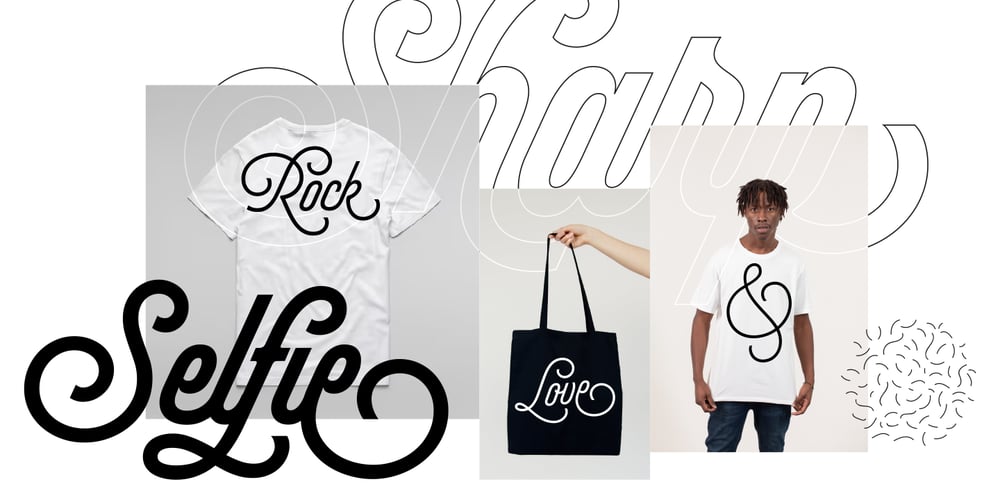
Selfie Neue Sharp Font Family was designed by Maximiliano R. Sproviero and published by Sproviero Type. Selfie Neue Sharp contains 85 styles and family package options. INTRODUCTIONWhen I started the first Selfie back in 2014 I was aware that I was designing something innovative at some point, because at that time there were not too many, (if any) fonts which rescued so many calligraphy features being at the same time a monolinear sans. I took inspiration from the galerías’ neon signs of my home city, Buenos Aires, and incorporated the logic and ductus of the spencerian style. The result was a very versatile font with many ligatures, swashes and a friendly look.But… I wasn’t cognizant of how successful the font would become!Selfie is maybe the font of my library that I see the most when I finally go out, (type-designers tend to be their entire lives glued to a screen), when I travel, and also the font that I mostly get emails about, asking for little tweaks, new capitals, new swashes. Selfie was used by several renowned clients, became part of many ‘top fonts of the year’ lists and was published in many magazines and books about type-design.These recognitions were, at the same time, cuddles for me and my Selfie and functioned as a driving force in 2020 to start this project which I called Selfie Neue.THE FONT”Selfie for everything”Selfie Neue, because it’s totally new: All its glyphs were re-drawn, all the proportions changed for better, and the old and somehow naive forms of the first Selfie were redesigned.Selfie Neue is now a family of many members (you can choose between a Rounded or a Sharp look), from Thin to Black, and from Short to Tall (because I noticed the feel of the font changed notoriously when altering its proportions).It also includes swashy Caps, which will serve as a perfect match for the lowercase and some incredibly cute icons/dingbats (designed by the talented Melissa Cronenbold, see also Selfie Neue Rounded for more!) which, as you see in the posters, make the font even more attractive and easy to use.You’ll find tons of alternates per glyph. It’s impossible to get tired with Selfie!Like it happened with the old Selfie, Selfie Neue Sharp was thought for a really wide range of uses. Magazines, Book-covers, digital media, restaurants, logos, clothing, etc.Hey! The font is also a VF (Variable Font)! So you can have fun with its two axes: x-height and weight, in applications that support them.Let me take a New Sharp Selfie!TECHNICAL If you plan to print Selfie Neue VF (Rounded or Sharp), please remember to convert it to outlines first. The majority of the posters above have the “contextual” alternates activated, and this makes the capitals a little smaller. I’d recommend deactivating it if you plan to use Selfie for just one word. Use the font always with the “fi” feature activated so everything ligatures properly. The slant of the font is 24,7 degrees, so if you plan to have its stems vertical, you may use Selfie with that rotation in mind. THANKS FOR READING